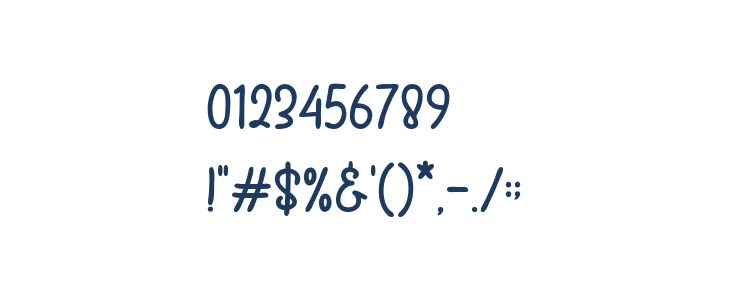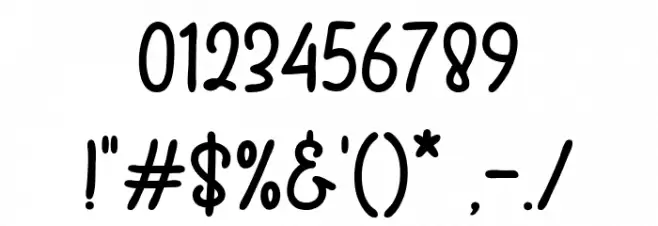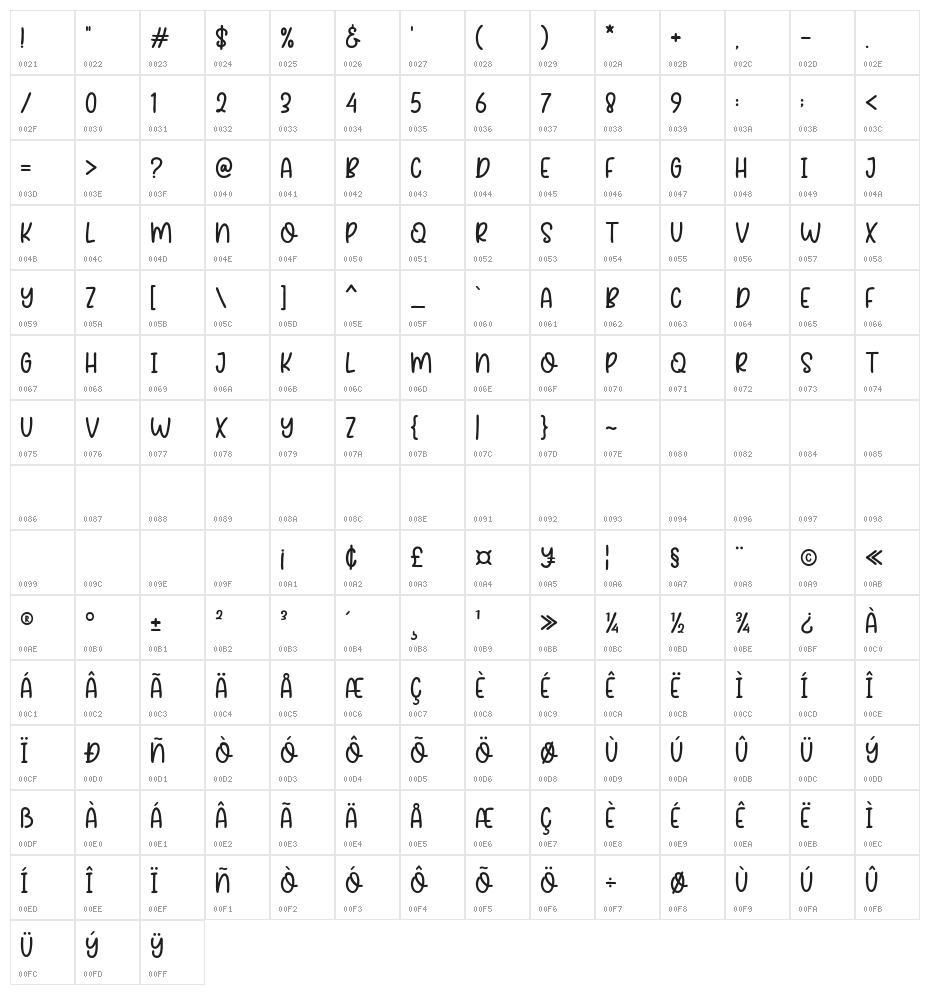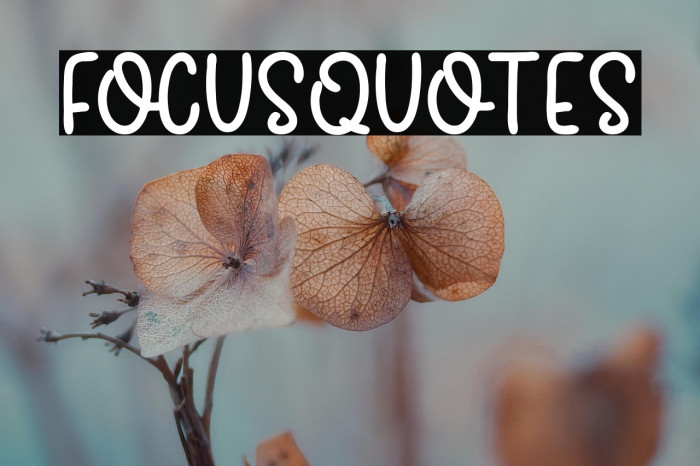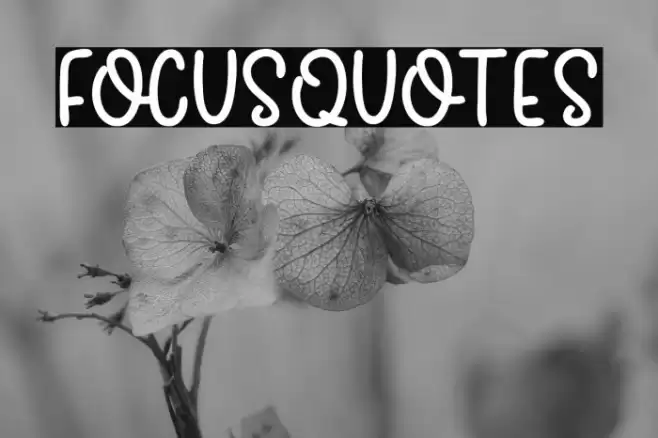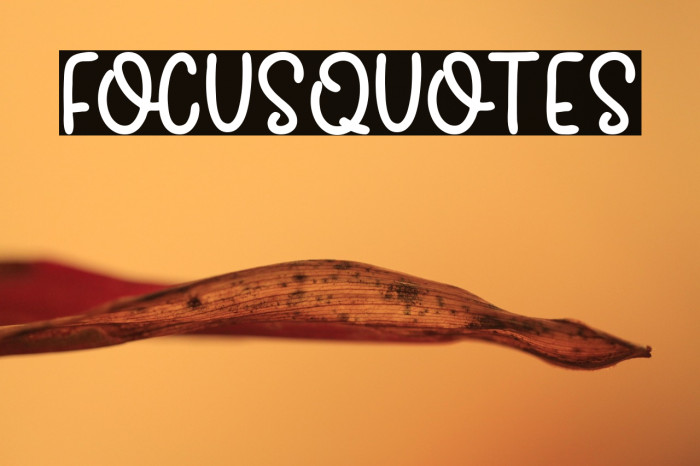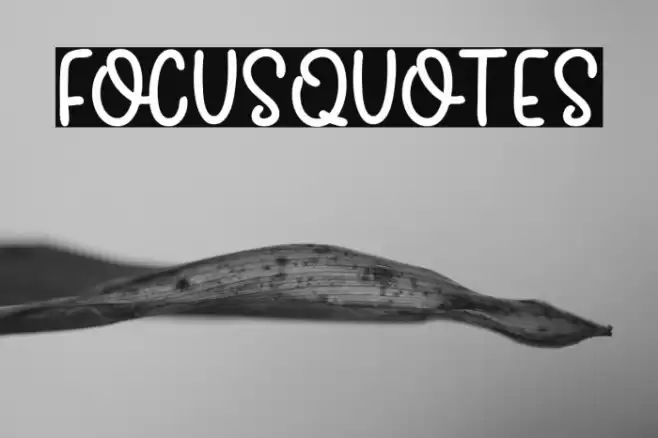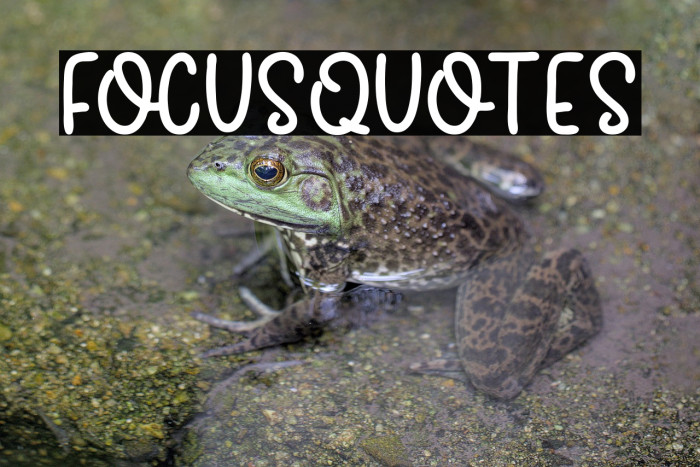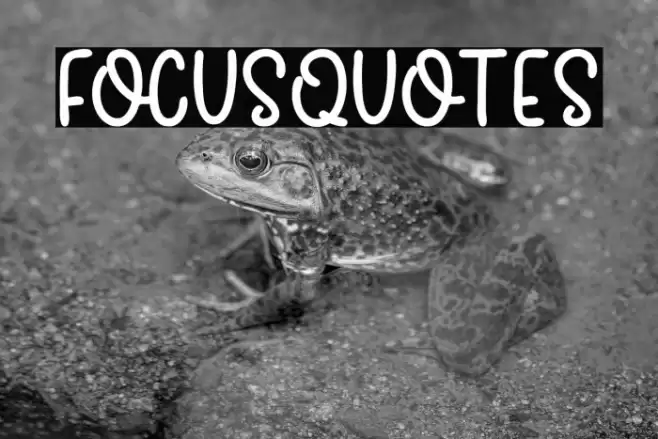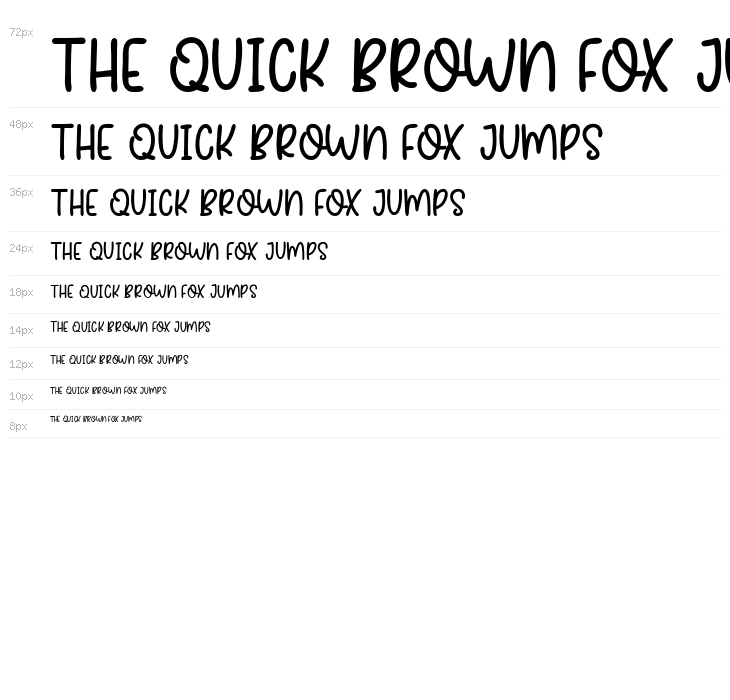
FocusQuotes Font
FocusQuotes Description
This playful and casual font features rounded, smooth strokes that give it a friendly and approachable appearance. The letters are slightly slanted, adding a touch of dynamism and movement. The uppercase and lowercase characters maintain a consistent style, with a uniform stroke width that ensures readability. The numerals and special characters are designed to match the overall aesthetic, making them blend seamlessly with the alphabet. This font's informal style makes it ideal for projects that require a personal touch, such as invitations, greeting cards, or playful branding materials.
| Proposed Projects | Ideal for invitations, greeting cards, playful branding, and personal projects. |